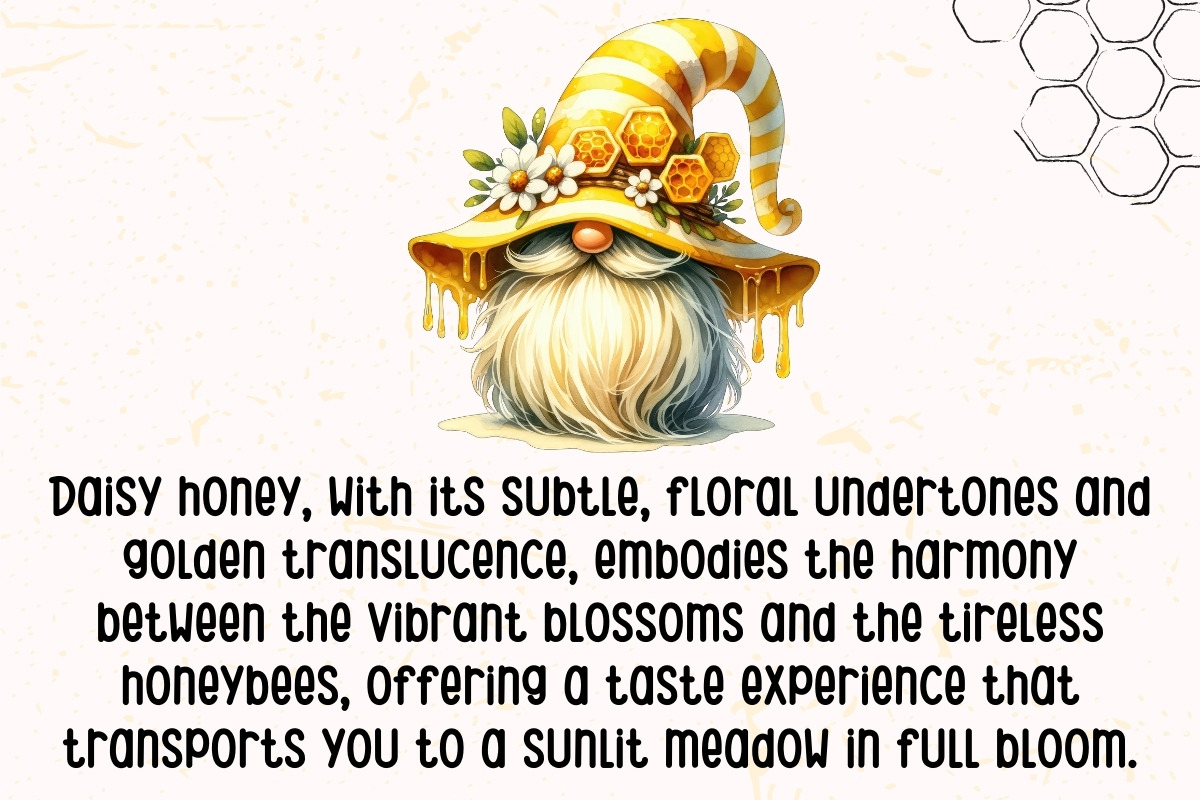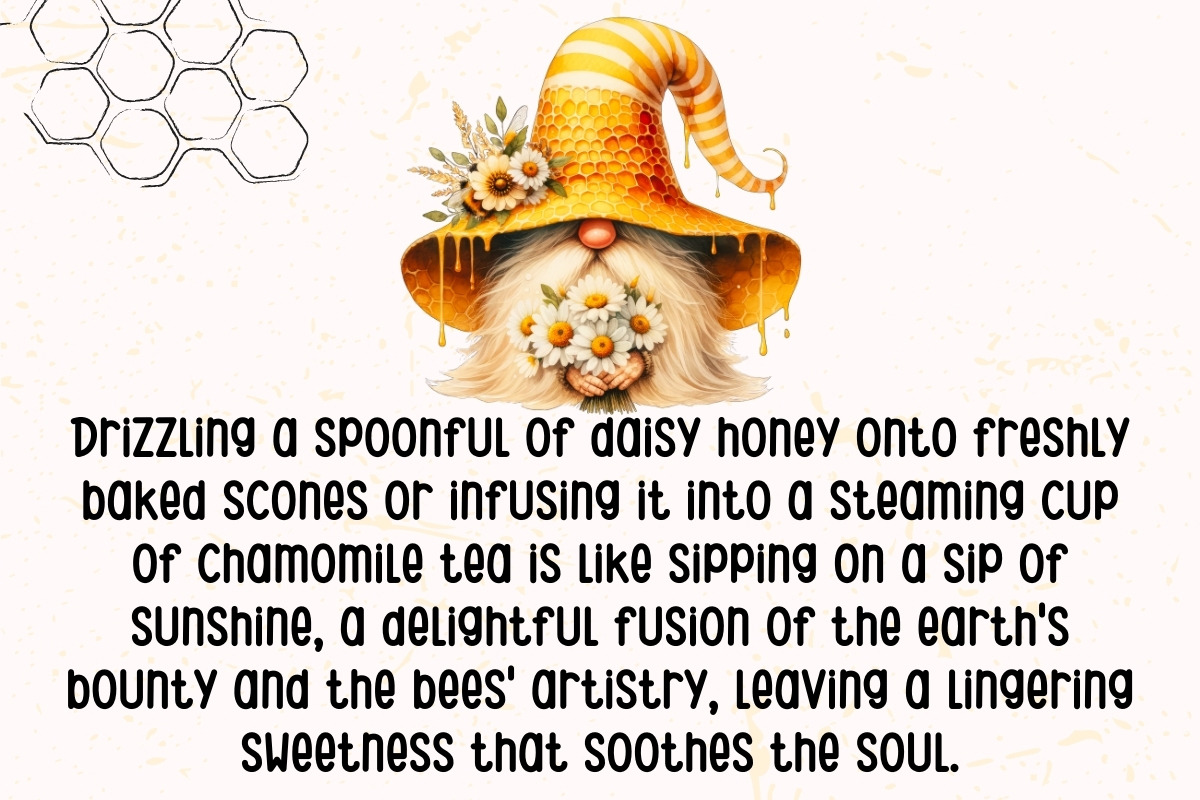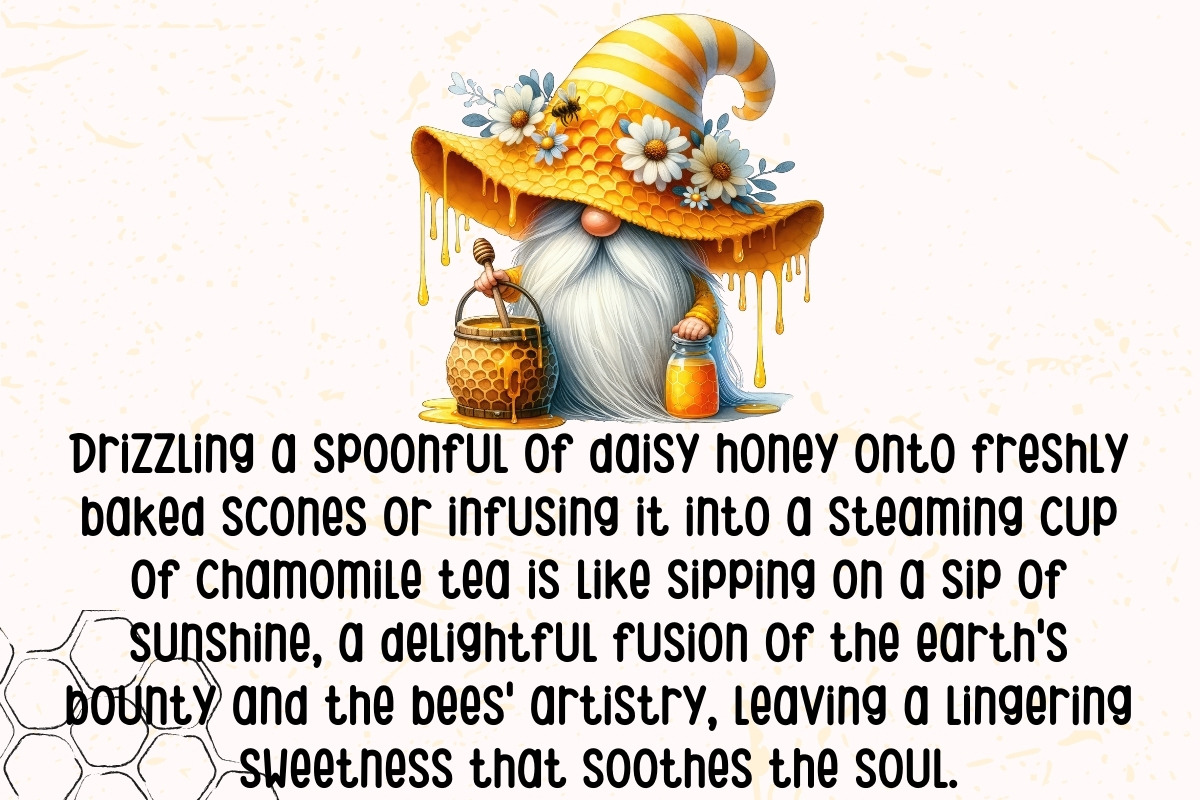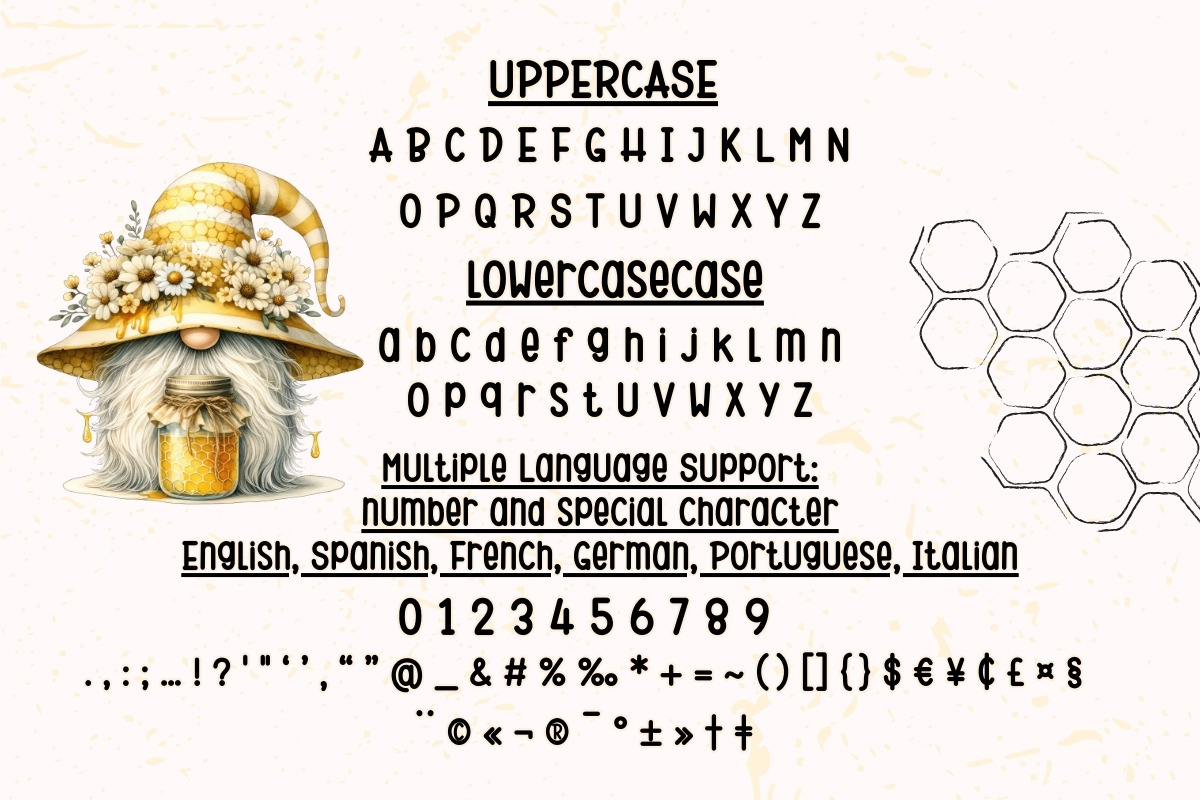
Daisie Honey - Handwritten
Graceful Handwriting: Each character of Daisy Honey flows effortlessly, mimicking the strokes of a skilled calligrapher. The fluidity of this font adds a personal touch to your projects. Sweet Simplicity: Daisy Honey embodies the simplicity of a handwritten note, yet it stands out with its own unique charm. Perfect for conveying heartfelt messages.